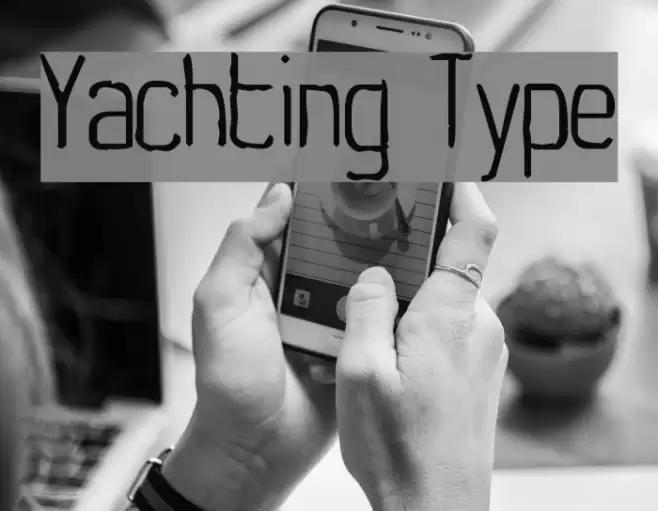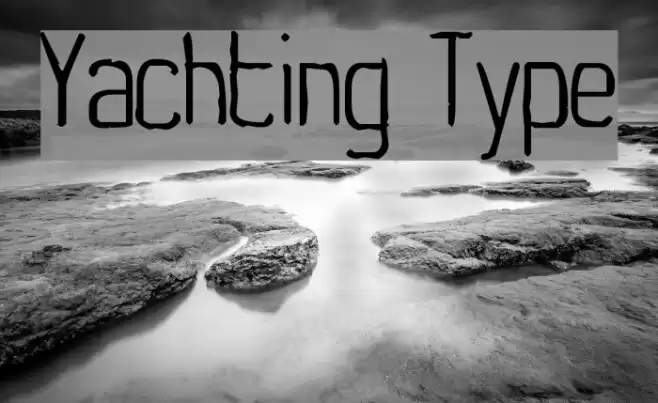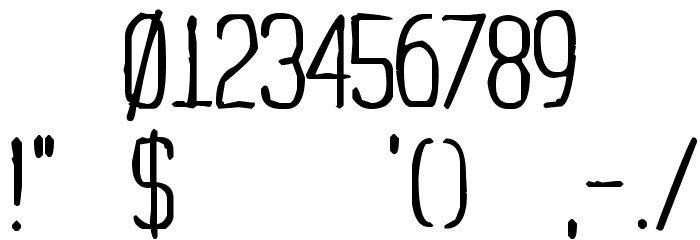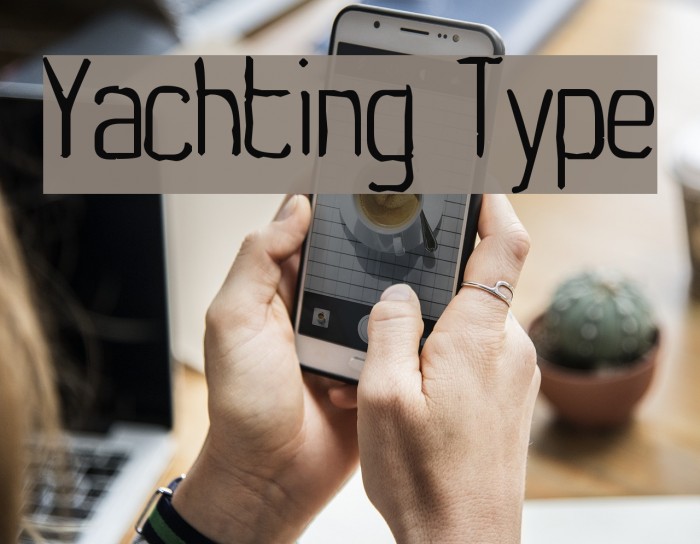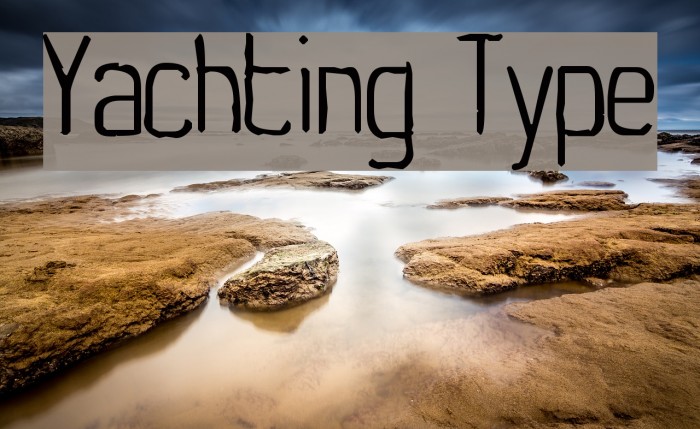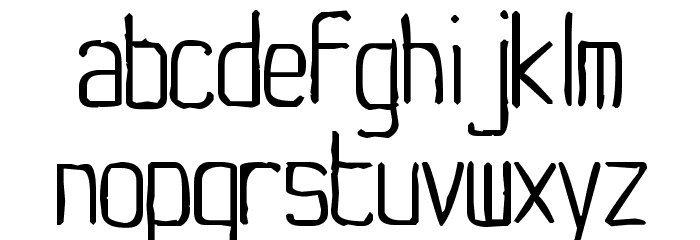
Yachting Type Font
Yachting Type Description
This font features a unique, hand-drawn aesthetic with irregular, slightly wavy lines that give it a casual and organic feel. The characters are tall and narrow, with a playful yet structured appearance. The uppercase letters are bold and prominent, while the lowercase letters maintain a consistent style with a slightly more relaxed form. Numbers and special characters follow the same design principles, ensuring a cohesive look across all elements. The font's distinct style makes it suitable for creative projects that require a touch of personality and flair.
A hand-drawn, playful font with tall, narrow characters and a casual aesthetic from Distorted Eroded fonts.
- Proposed Projects: Ideal for creative projects such as posters, invitations, and branding materials that seek a personal and artistic touch.
- Overall Style: Casual
- Use Case: Headlines, Logos, Creative projects